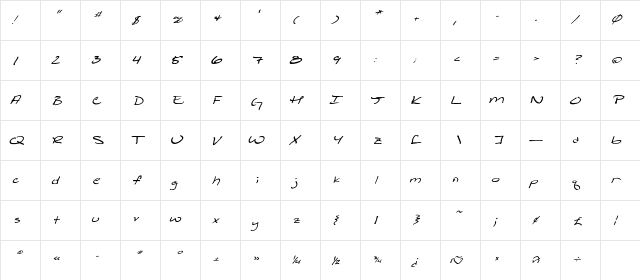
Shattered Print Italic
| Designer | Krystal Kubiszewski |
Design Context for Shattered Print Typeface
Shattered Print is a composed and adaptable typeface that performs quietly and consistently across a wide range of design contexts. Its italic angle brings a sense of urgency and motion to the letterforms.
Pro Tip: Use Shattered Print for emphasis, pull quotes, and subheadings where its slanted energy can add rhythm to the layout.